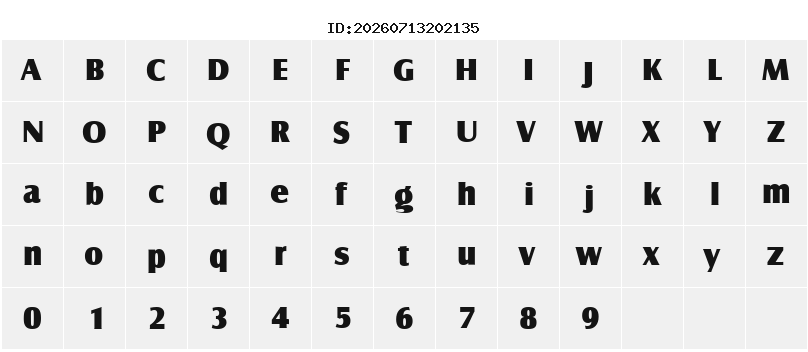
Canossa-Ultra Preview
• Font Name: Canossa-Ultra
• Font ID: SoftMaker Software GmbH Canossa-Ultra-Regular
• Full Font Name: Canossa-Ultra-Regular
• PostScript Name: CanossaUltra
• Designer: SoftMaker Software GmbH
• Manufacturer: SoftMaker Software GmbH
About Canossa-Ultra.ttf
Canossa-Ultra.ttf is a modern, elegant sans-serif font designed for ultimate readability and visual harmony. Perfect for branding, headlines, web design, and print materials.